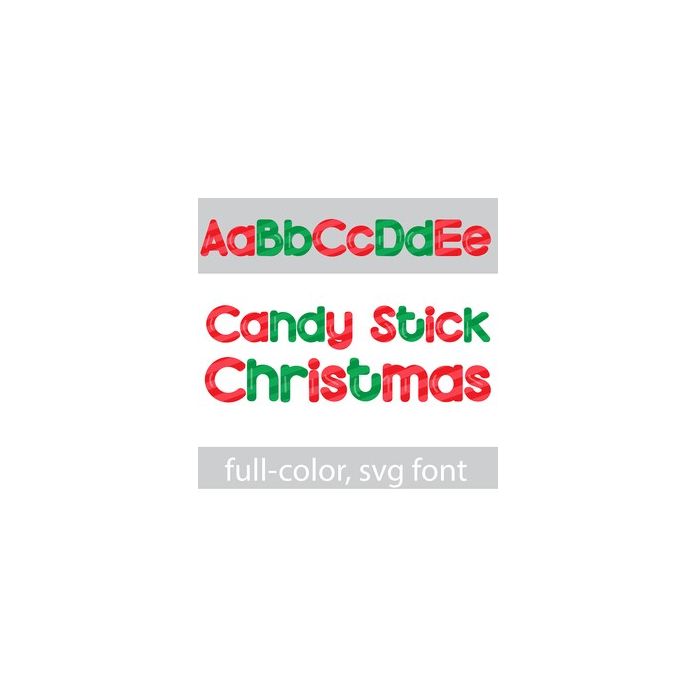
This full-color font features red and green striped candy. There is an alt case w/ additional colors you can access through your system or Silhouette's glyph map.